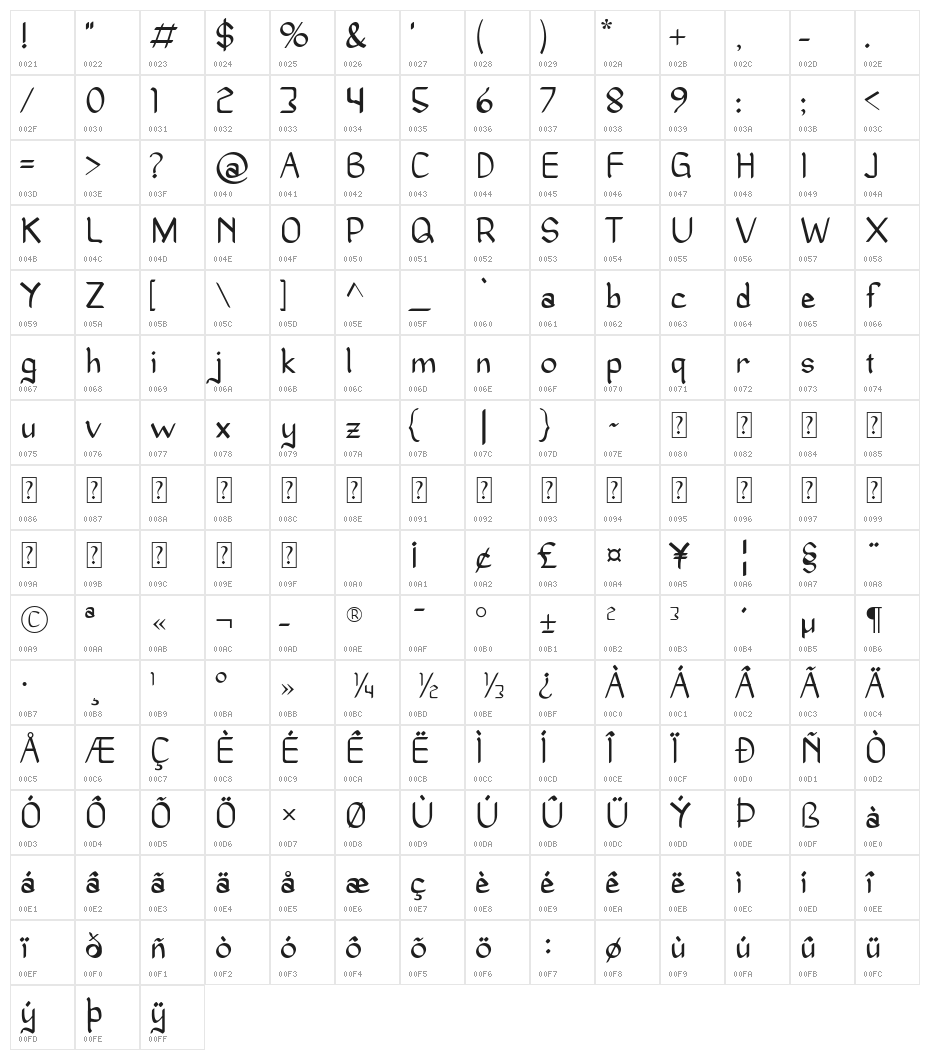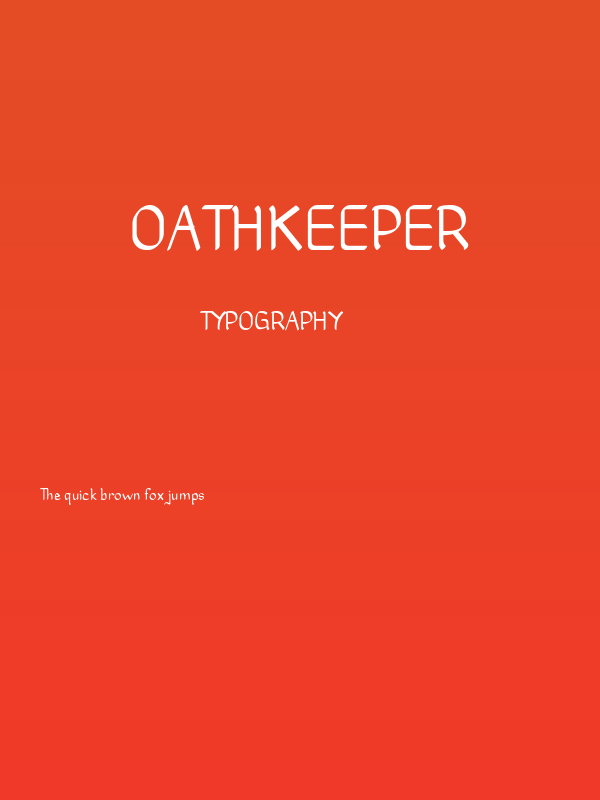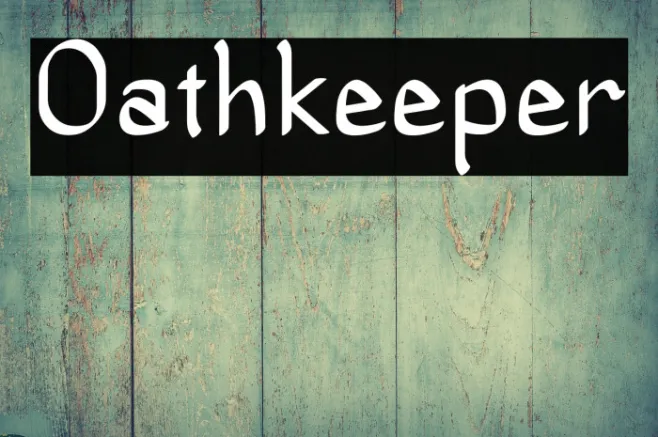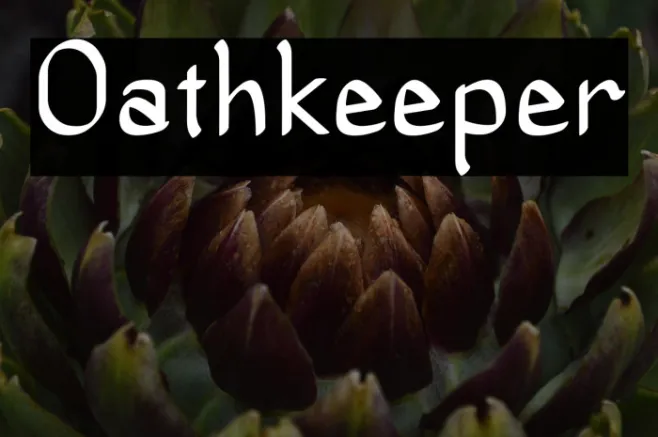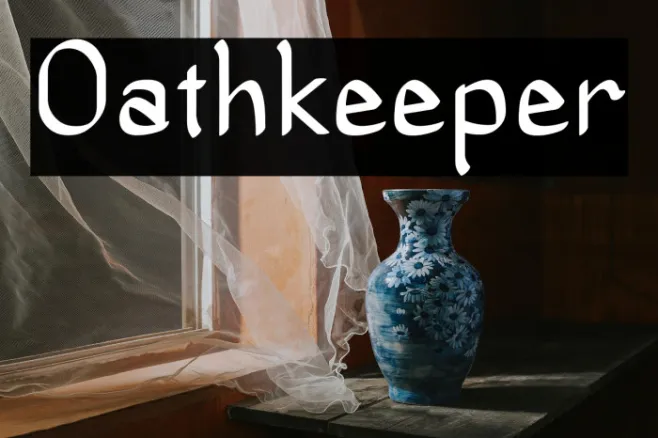
Oathkeeper Font
Oathkeeper Description
This font features a unique blend of geometric and organic elements, creating a distinct and modern appearance. The uppercase letters are characterized by their angular and sharp edges, while the lowercase letters introduce a more fluid and rounded style. This contrast between the uppercase and lowercase forms adds a dynamic quality to the font. The numerals maintain a consistent style with the letters, offering a cohesive look across all characters. Special characters are designed with the same attention to detail, ensuring they integrate seamlessly with the rest of the font. The overall design is clean and contemporary, making it suitable for a variety of applications.